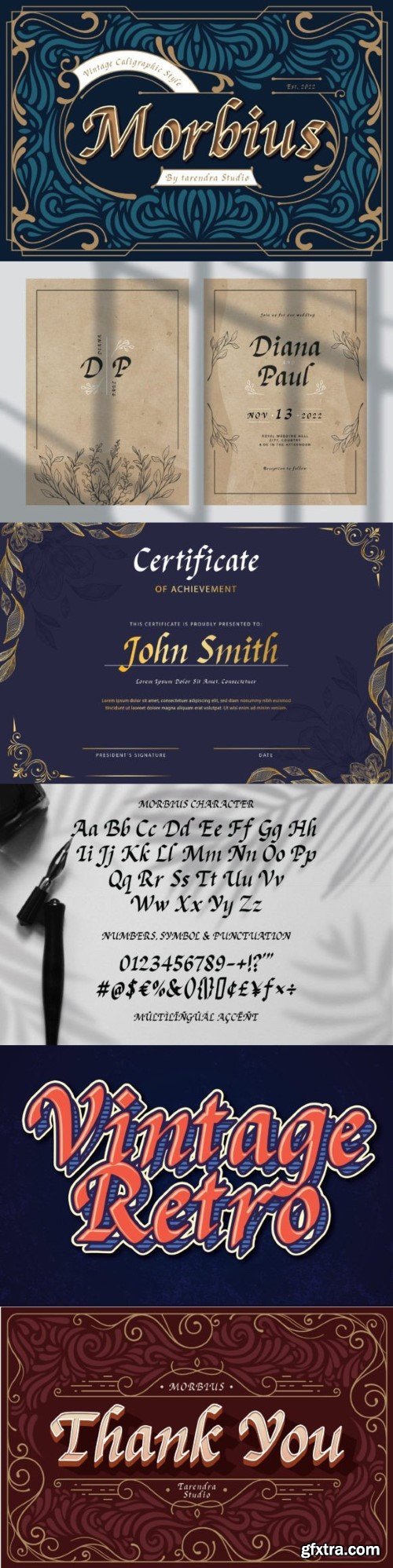
墨比乌斯字体
Morbius Font
Morbius is an incredibly authentic and daring Caligraphy font. Add this font to your favorite creative ideas and notice how it makes them stand out!